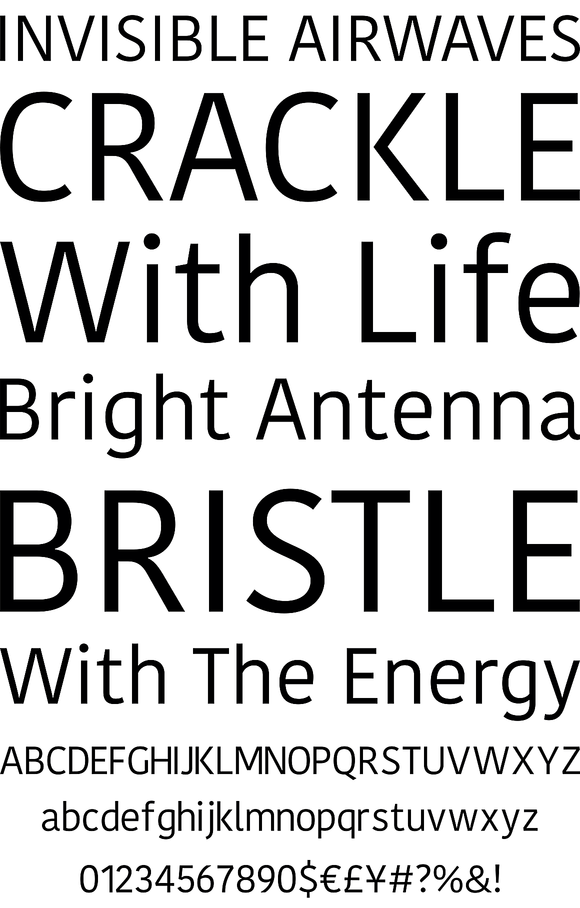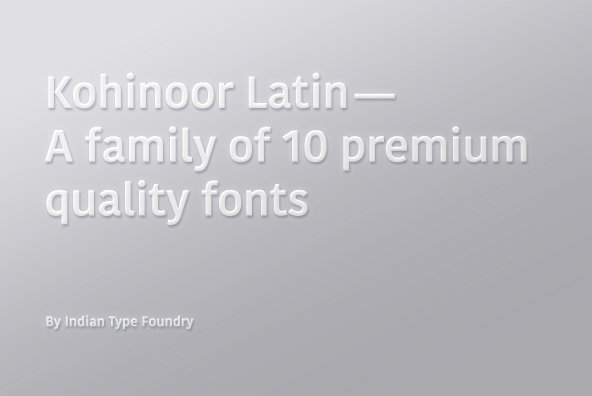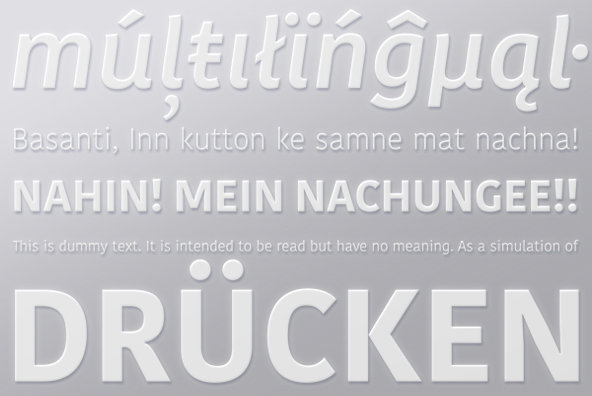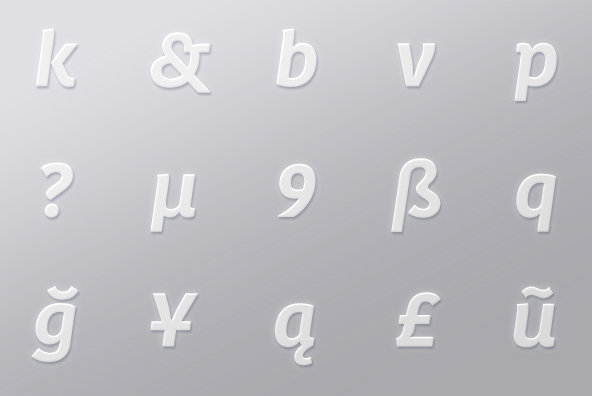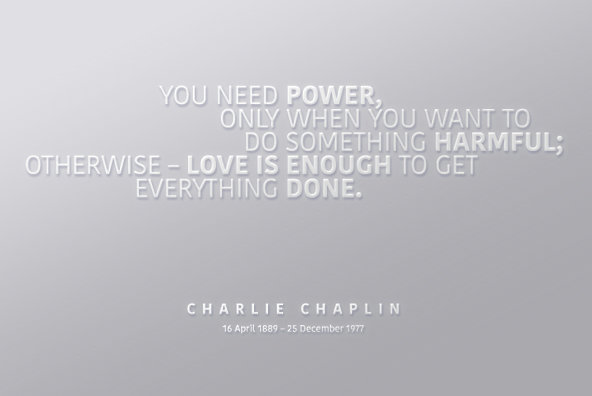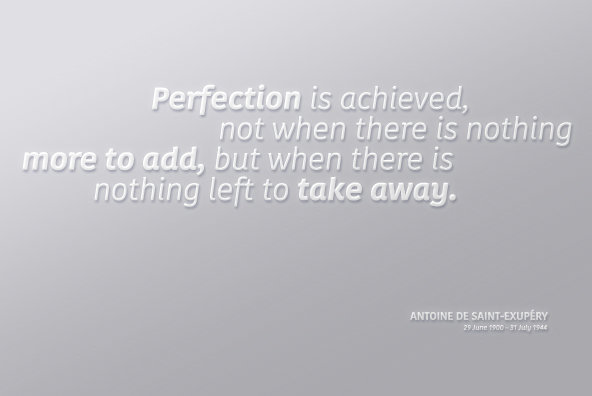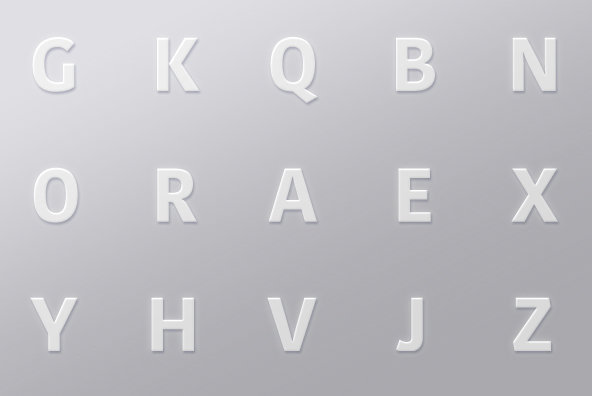
Kohinoor
Kohinoor is an elegant, low contrast humanist sans-serif typeface suitable for both body and the display text. Kohinoor comes in 5 upright styles with their complementary italics.